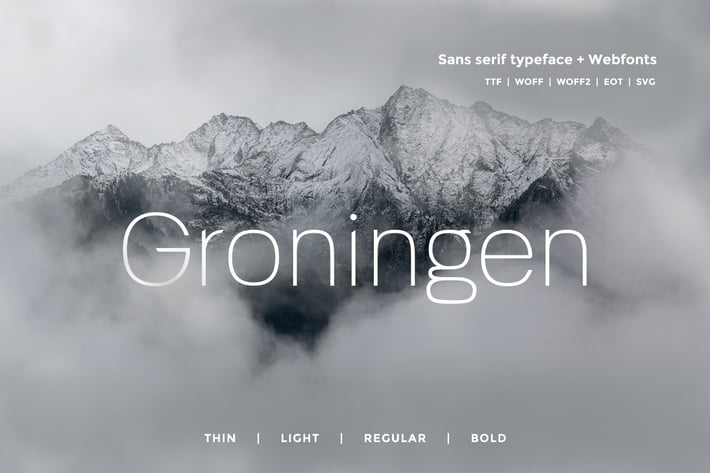
Groningen - Modern San-serif Typeface + Webfonts
Groningen Sans
Groningen Sans is a modern Sans Serif classic headline typeface inspired by German Grotesk typefaces that keep the minimalism at its level best. We have added Modern Styles and concentration to the details. Groningen Sans will be best suited for creating perfect looking headlines that you can always find in fashion web stores and minimal portfolio websites.